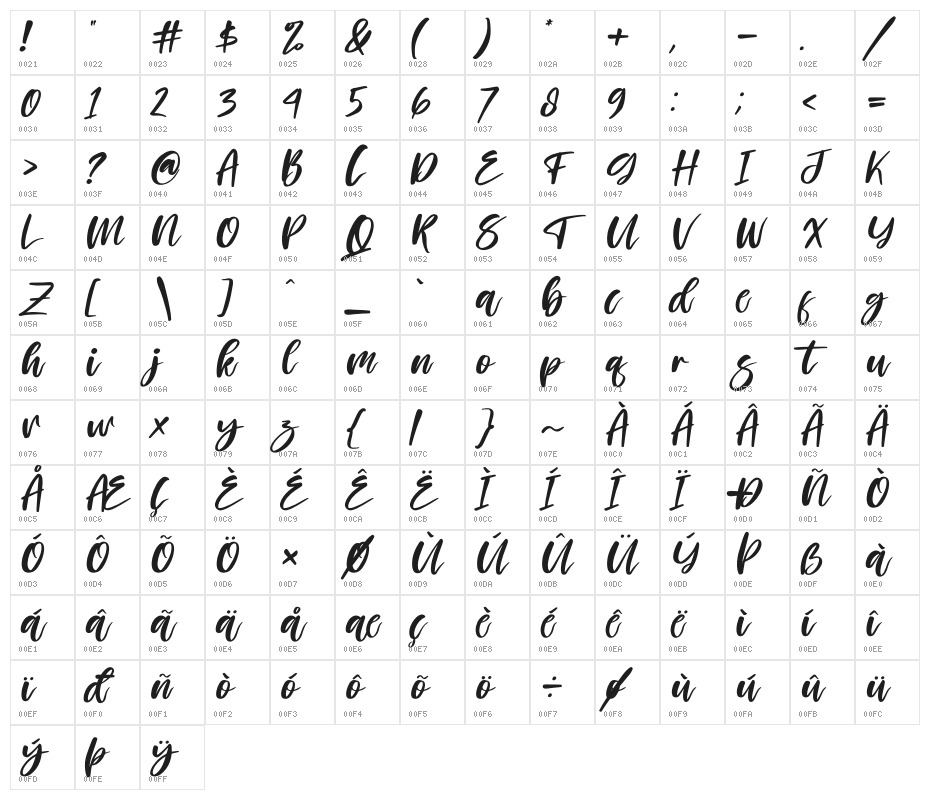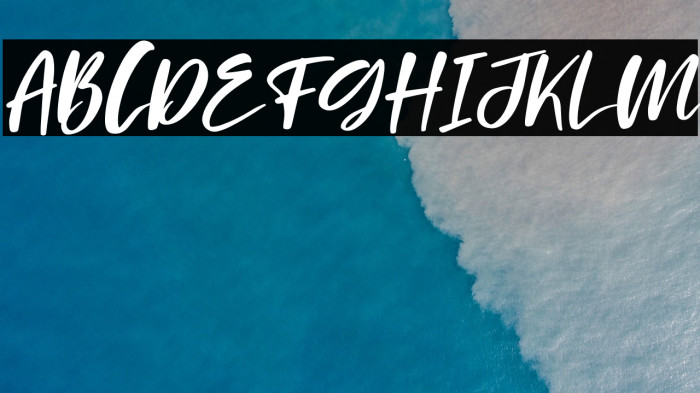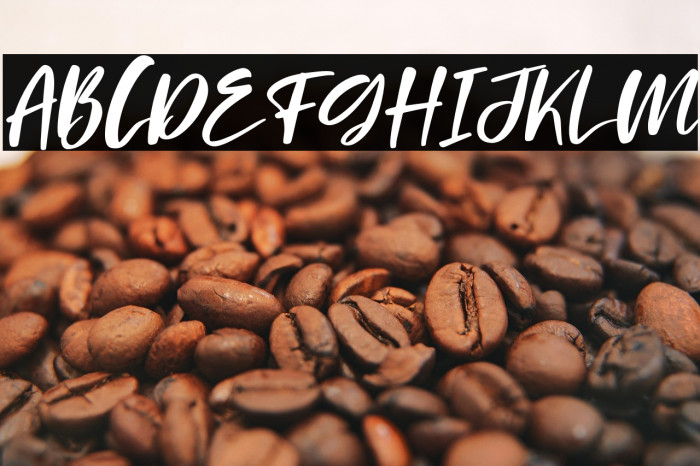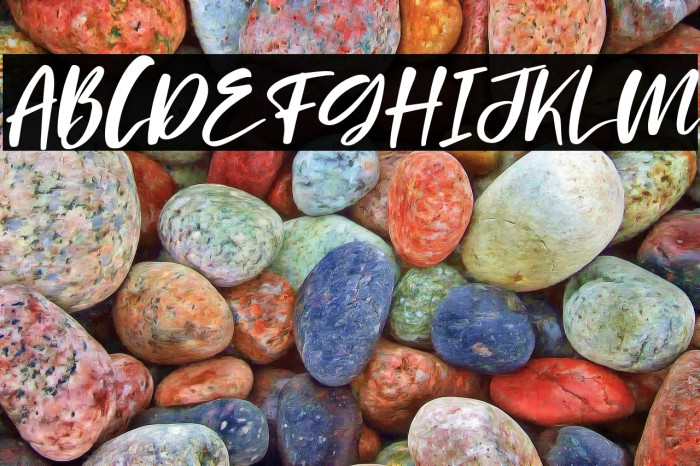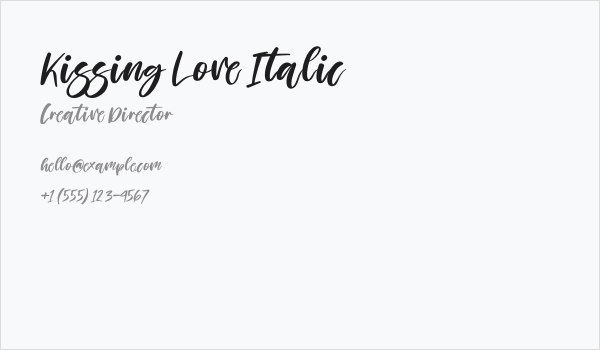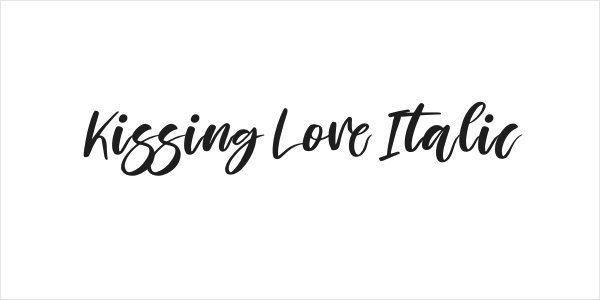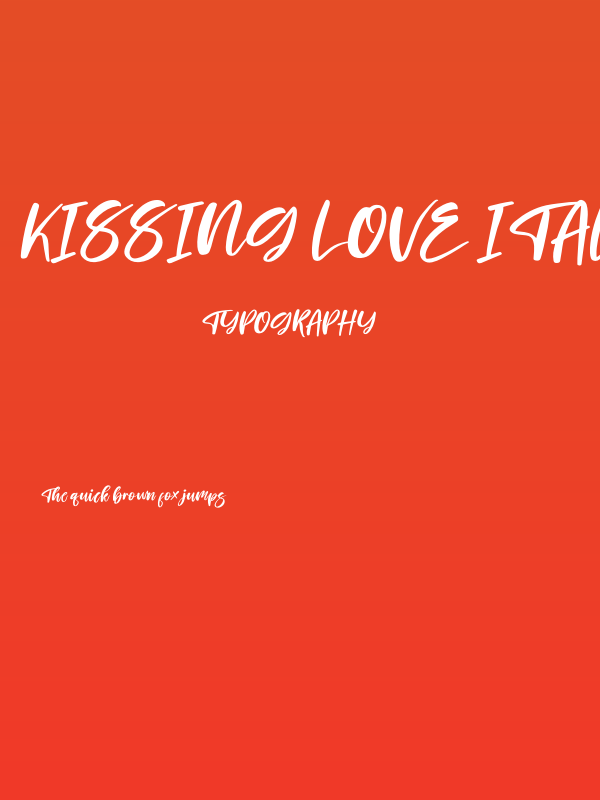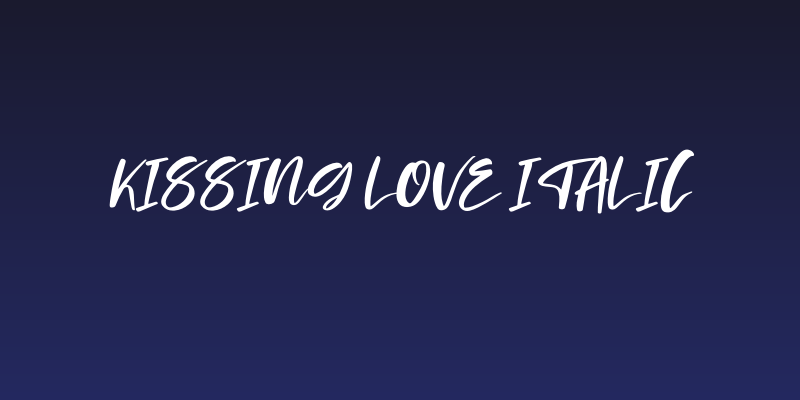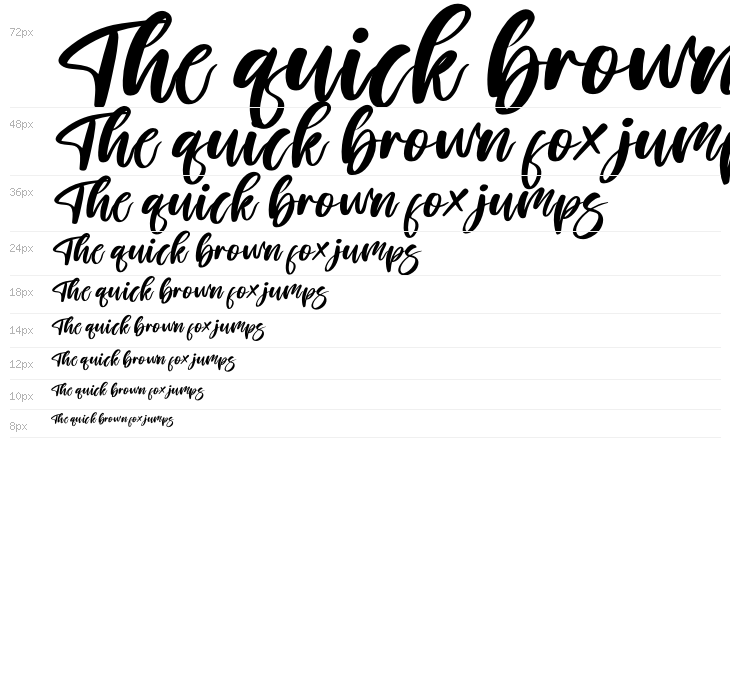
Kissing Love Italic Font
Kissing Love Italic Description
This font features a dynamic and expressive script style, characterized by its fluid, cursive strokes and a sense of movement. The letters are interconnected, creating a seamless flow that mimics natural handwriting. The uppercase letters are bold and prominent, while the lowercase letters maintain a consistent rhythm. The numerals and special characters are crafted with the same attention to detail, ensuring uniformity across the font. The overall appearance is both elegant and playful, making it suitable for projects that require a personal touch.
Use CaseLogos, Headlines, Invitations
Proposed ProjectsIdeal for wedding invitations, greeting cards, branding, and social media graphics.